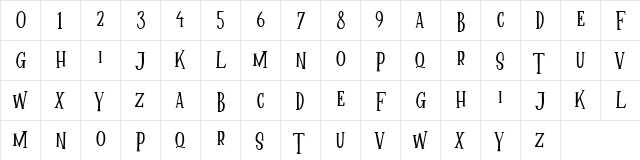
Mallica Fairytale DEMO Regular
Design Context for Mallica Fairytale DEMO Typeface
Mallica Fairytale DEMO is a composed and adaptable typeface that performs quietly and consistently across a wide range of design contexts.
Pro Tip: Use Mallica Fairytale DEMO in both headline and body roles to test its range before committing to a single application.